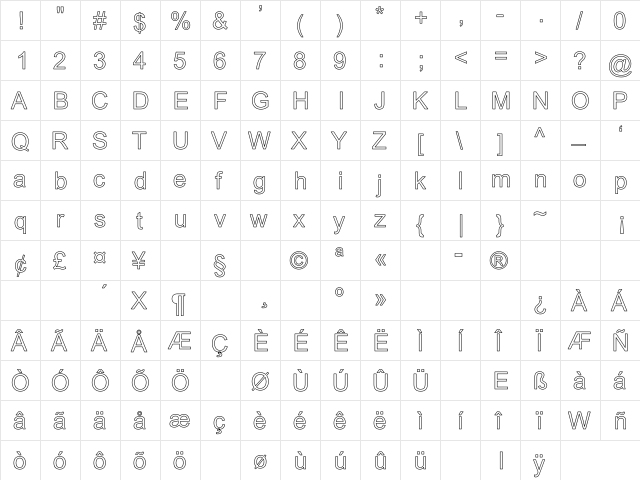
MasonHollow Regular
Design Context for MasonHollow Typeface
MasonHollow is a composed and adaptable typeface that performs quietly and consistently across a wide range of design contexts.